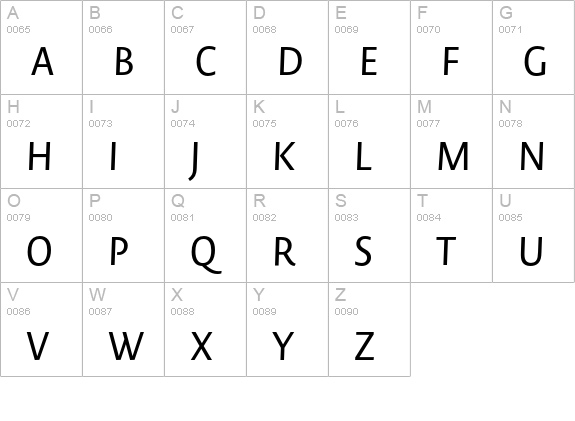
Novel Sans Pro It Font Details
Novel Sans Pro It is a modern and elegant font that exudes sophistication and style. With its clean lines and sleek design, this typeface is perfect for a wide range of projects, from professional documents to creative designs. The italicized version of Novel Sans Pro adds a touch of flair and emphasis to your text, making it stand out in a subtle yet impactful way. What truly sets Novel Sans Pro It apart is that it is available for free download at FontsMarket.com. This means you can access this high-quality font for no cost at all, making it a valuable addition to your font library without breaking the bank. Whether you're a designer looking for a versatile typeface or a writer in need of a polished look for your work, Novel Sans Pro It is the perfect choice. Download it today and elevate your projects with this stylish and versatile font.